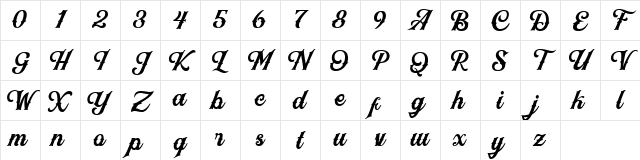
Black Jack Script flows with the natural rhythm of handwritten lettering, making it ideal for designs that call for warmth and personal expression.
Font Pairing: Combine Black Jack Script with a simple geometric sans for maximum contrast - the tension between flowing curves and clean structure is a classic typographic pairing.
Pro Tip: Use Black Jack Script for short runs of text - names, titles, or taglines. Extended body copy in script faces tires the eye quickly.